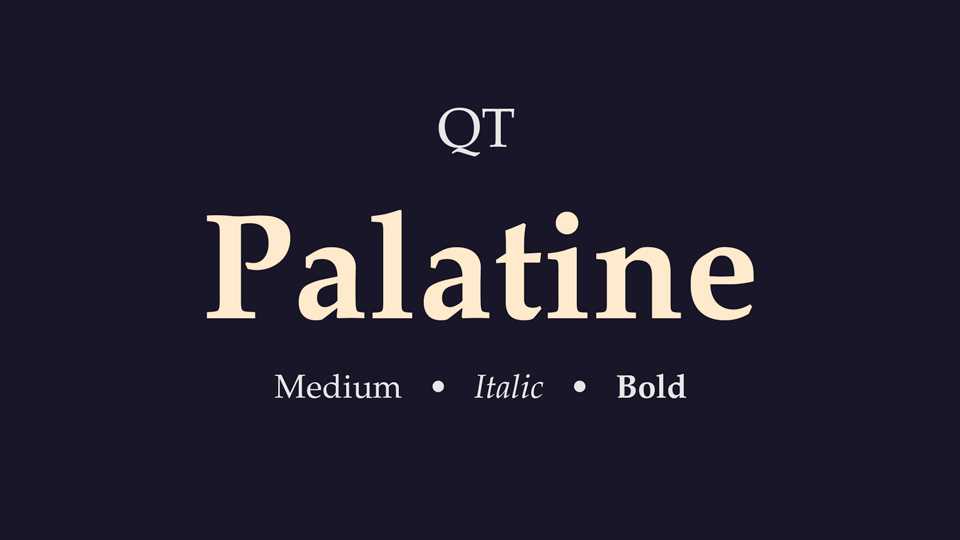
Download Palatine typeface, an old style solid serif font family, based on Palatino, designed by Hermann Zapf, initially released in 1949 by the Stempel foundry.